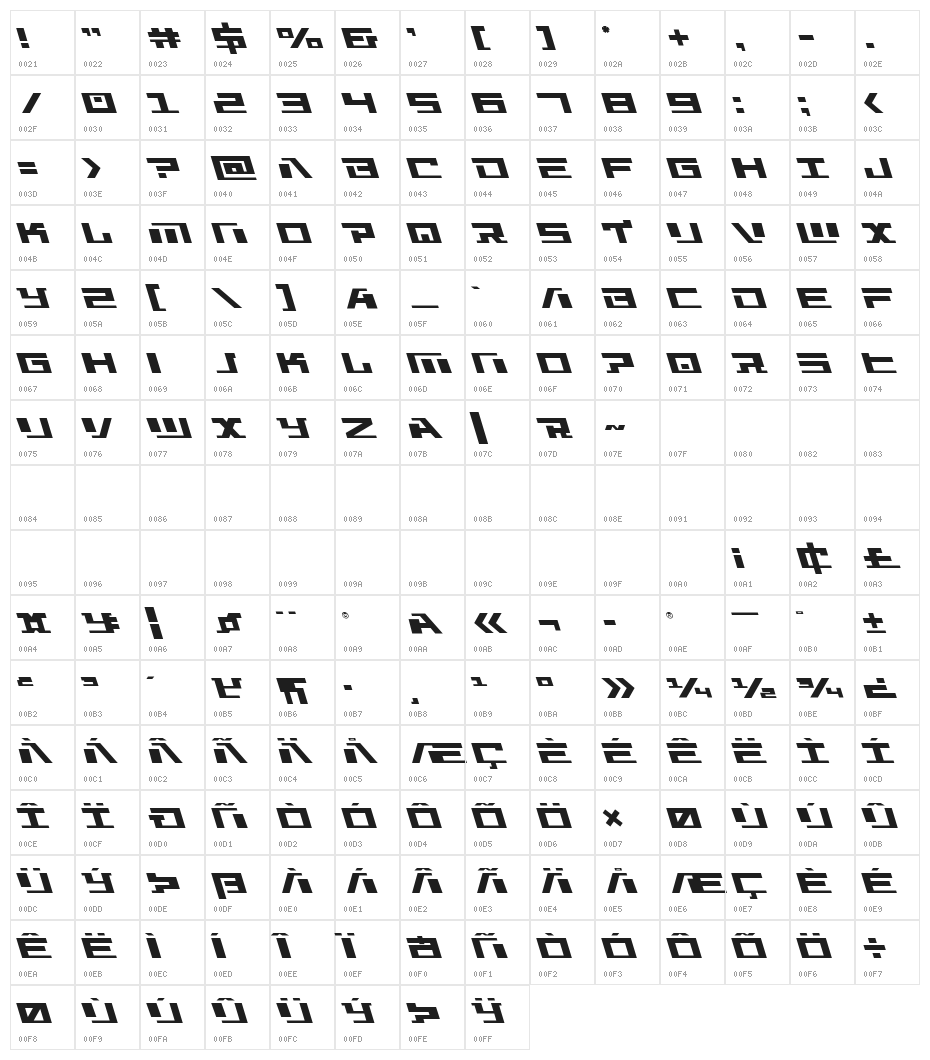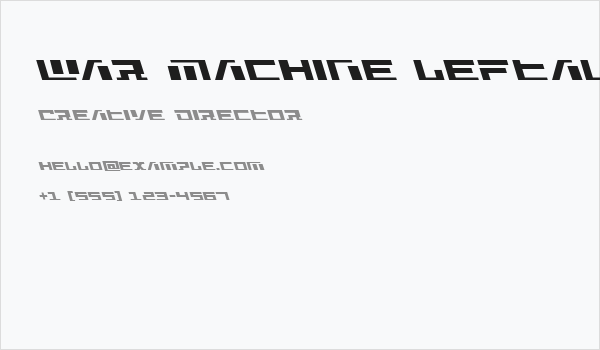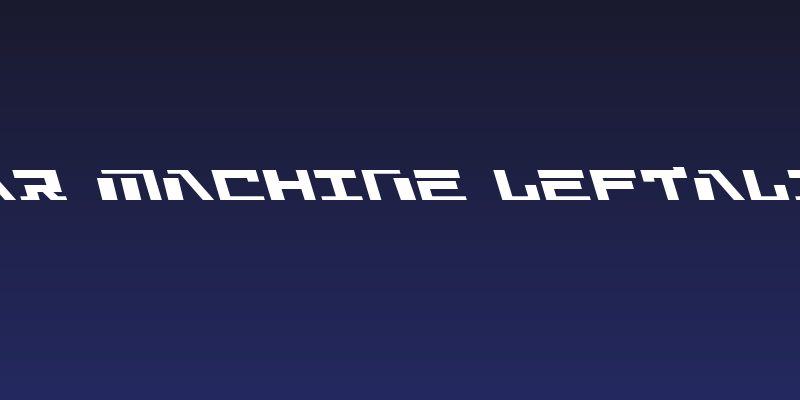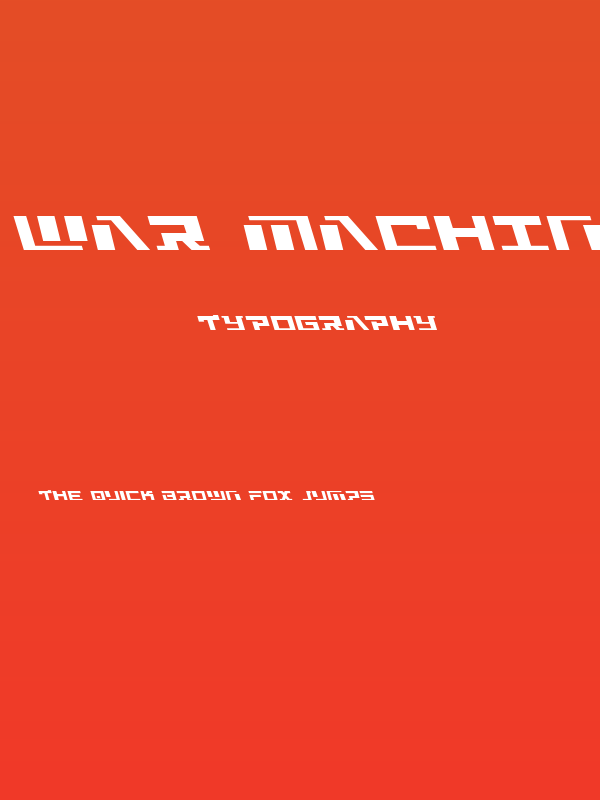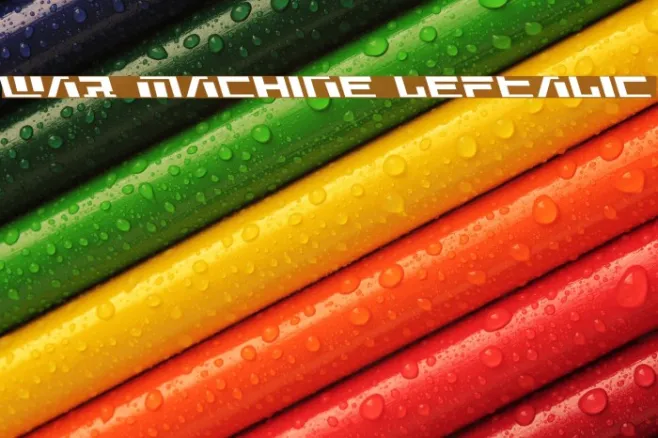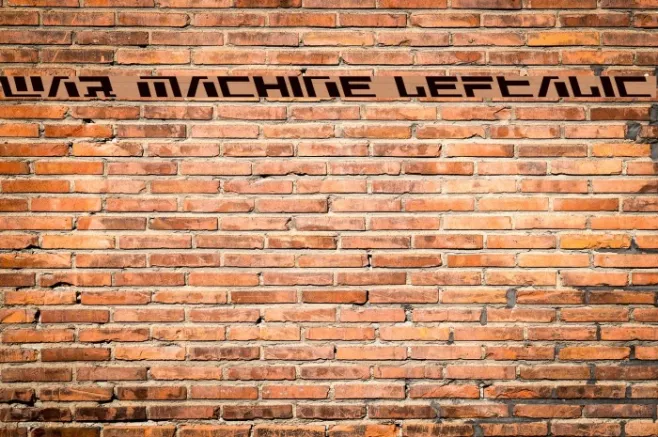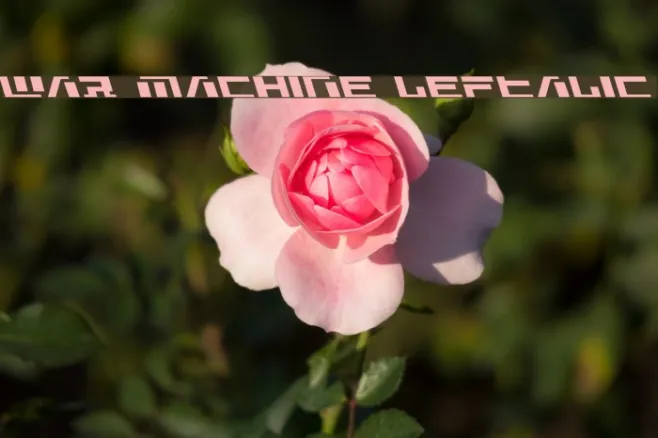
War Machine Leftalic Font
War Machine Leftalic Description
This font features a bold, angular design with a futuristic and mechanical aesthetic. The characters are constructed with sharp, geometric lines and a slight slant, giving them a dynamic and aggressive appearance. The uppercase and lowercase letters maintain a consistent style, with a strong emphasis on horizontal and vertical strokes. The numerals and special characters follow the same design principles, ensuring uniformity across the typeface. This font's unique style makes it stand out, ideal for projects that require a modern and edgy look.
| Overall Style | Futuristic, Mechanical |
| Proposed Projects | Ideal for video game titles, tech branding, sci-fi movie posters, and industrial-themed designs. |